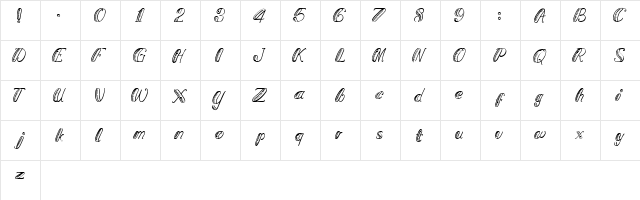
Surrender Regular
Design Context for Surrender Typeface
Surrender is a composed and adaptable typeface that performs quietly and consistently across a wide range of design contexts.